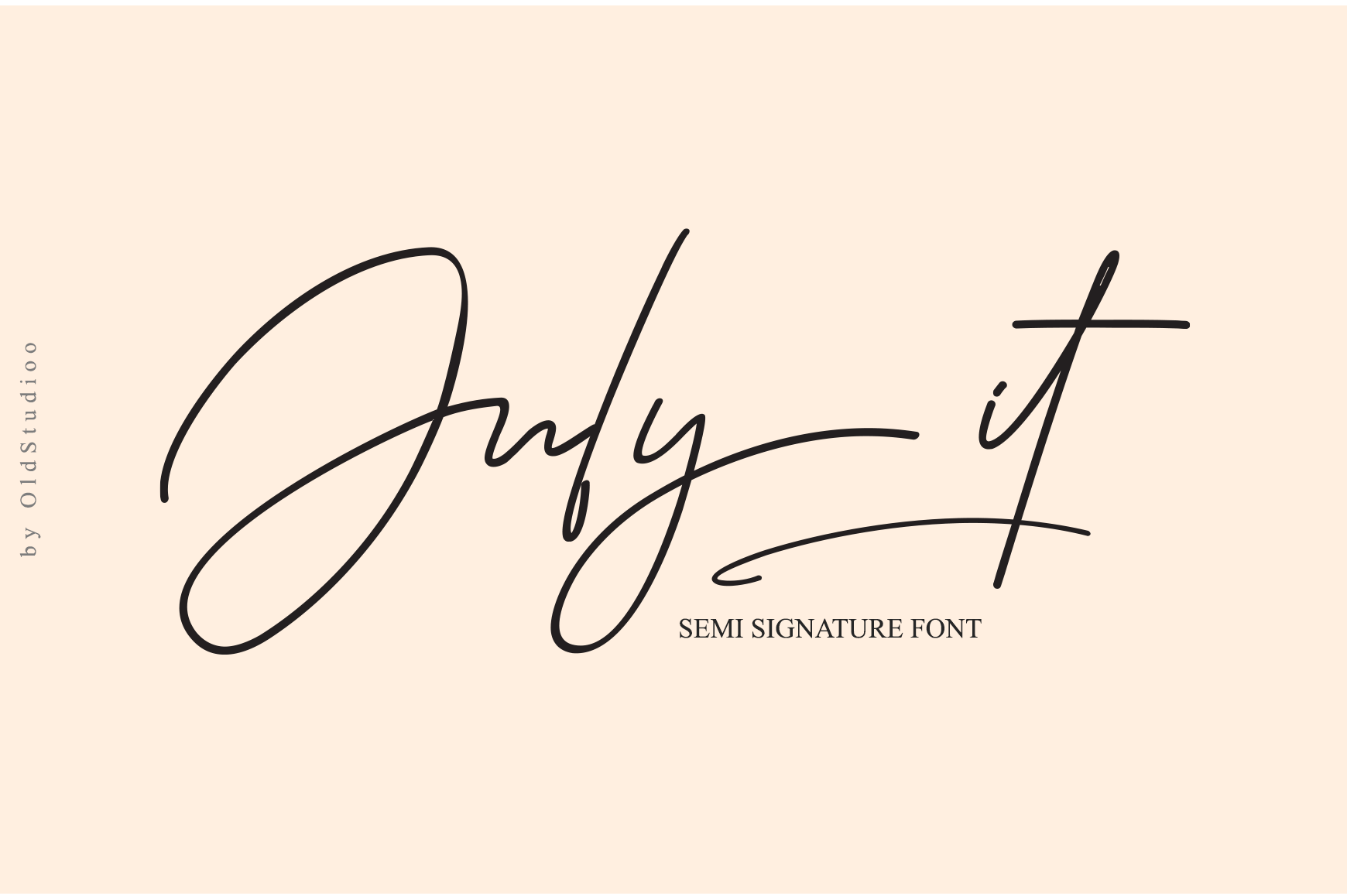
July it // Semi Signature Font
We introduce our new product called July it Semi Signature Font
July it Semi Signature is a signature font that you can use to make a design. This is perfect for BRANDING,funny logos with this font and poster headline, magazines, book titles, business cards, beautiful fashion designs, advertisements, product designs, wedding invitation, signature or handwritten quote.
July it also includes full set of uppercase and lowercase letters, multilingual symbols, numerals, punctuation. The font has smooth wet ink texture, so would be perfect for all types of printing techniques+you can do embroidery, laser cut, gold foil etc.
Latin A -Z and a – z
Number
International Symbol
International glyphs
Alternatif
Ligature
Swashs
Languages supported: Breton, Catalan, Czech, Danish, Estonian,French, German, Hungarian, Icelandic, Italian, Romanian, Scottish Gaelic, Slovak, Latvian, Lithuanian, Norwegian, English, Finnish, Polish, Portuguese, Slovenian, Spanish, Swedish, Turkish, Welsh. Basically, all european languages that are based on latin alphabet.